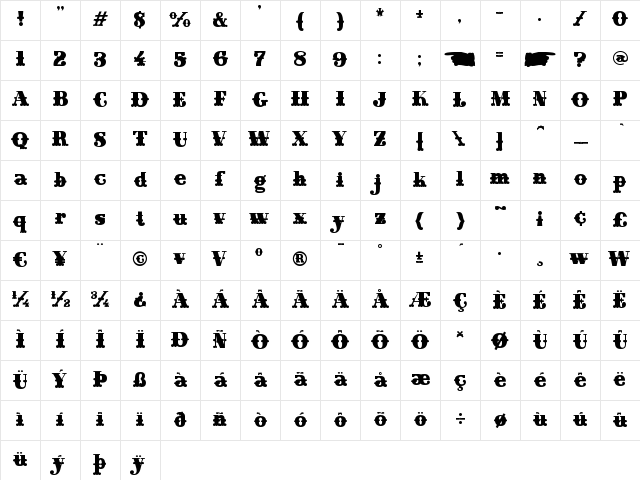
Home Style Fill Regular
Foundry: Michael Hagemann www.fontmesa.com
Designer: Michael Hagemann
Design Context for Home Style Fill
Home Style Fill is a composed and adaptable typeface that performs quietly and consistently across a wide range of design contexts.